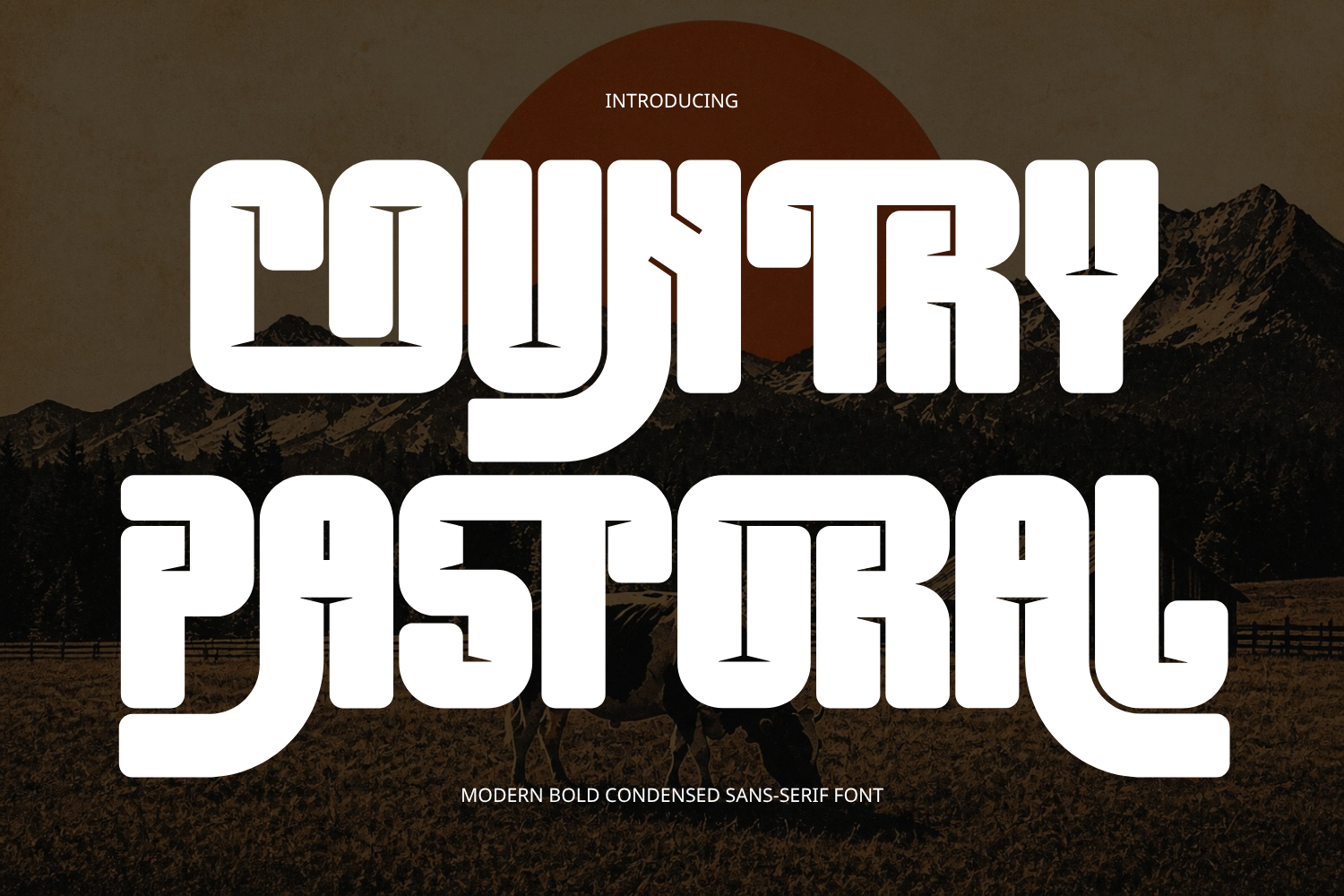
COUNTRY PASTORAL FONT
COUNTRY PASTORAL FONT – Modern Retro Western & Chunky Rustic Display Font is a bold, heavyweight display typeface crafted at the intersection of modern retro design, outdoor western heritage, and rustic vintage typography. Built with smooth rounded contours and distinctive inner triangular chisel notches, this font delivers a rugged yet friendly aesthetic that commands instant visual authority.
Engineered to give headlines and display graphics a solid, emblem-like presence, its heavy block proportions and cohesive sweeping stems transform simple text into striking logotypes effortlessly. Whether you are creating outdoor adventure brandings, craft beverage packaging, country festival posters, vintage apparel graphics, or rustic signage, COUNTRY PASTORAL provides the perfect balance of nostalgic warmth, craftsman spirit, and high-impact visual weight.
🔤Features:
Uppercase & Lowercase Letters
Around 100 Special Ligatures & Alternates
Accented Characters for multilingual support
🔤About 100 ligatures combined with Stylistic Alternates Font:
AC AD AL AN AR AS AT AU AV BE CA CE CH CO CT DE DI EA EC ED EE EL EM EN EP ER ES ET FE FO FR GE HA HE HI HO IE IC IL IN IO IR IS IT JU KE LA LE LI LL LO LY MA ME MI NC ND NE NG NO NT NS OC OF OM ON OO OP OR OT OU OW PA PR RA RD RE RI RO RS RT SE SH SI SO SS ST TA TE TH TI TO TR TT UM UN UR VE WI WO